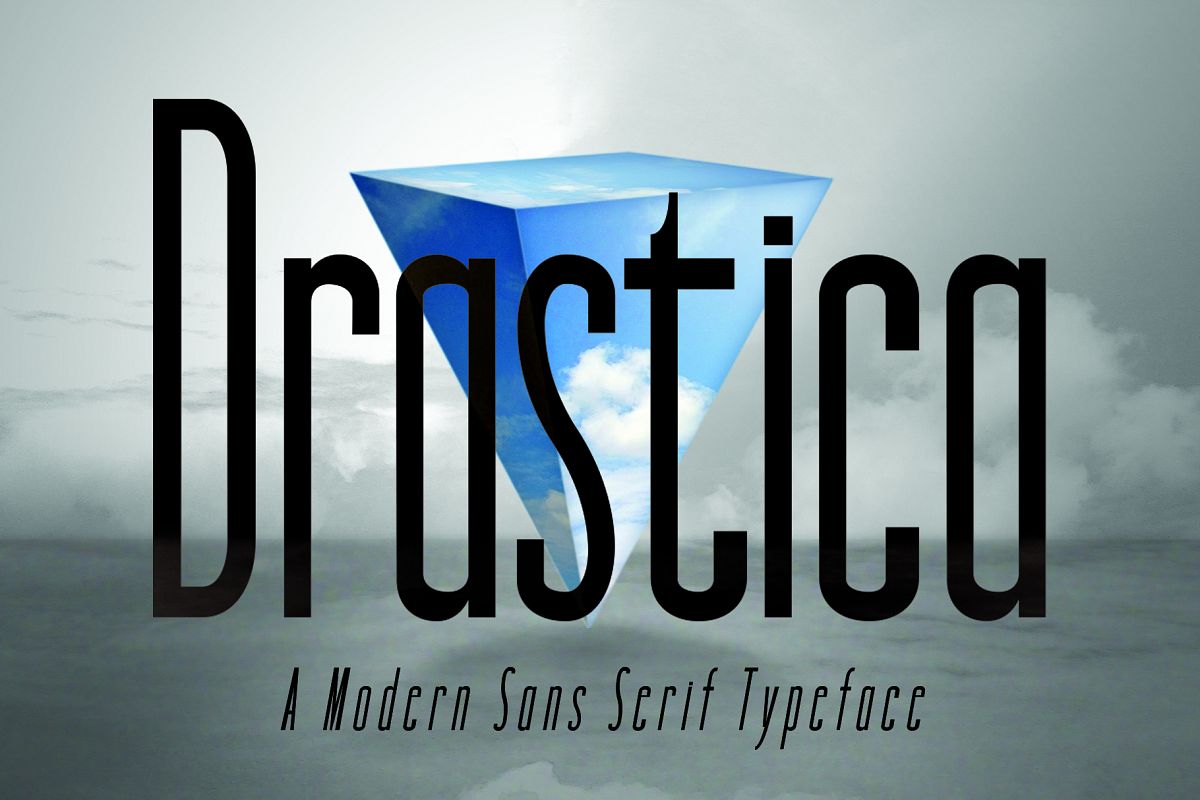
DRASTICA, A Modern Typeface
Drastica regular
Drastica regular-italic
A simple yet elegant font. It's style makes it perfect for use in your design projects.